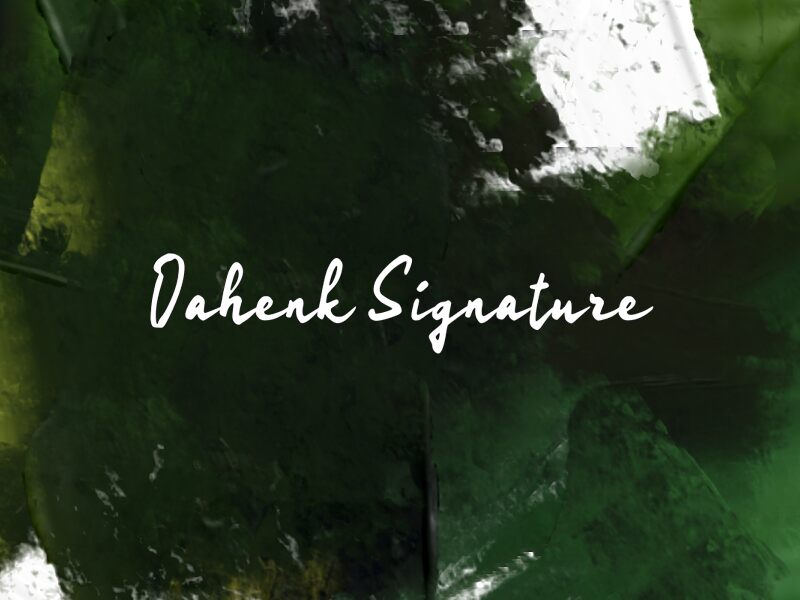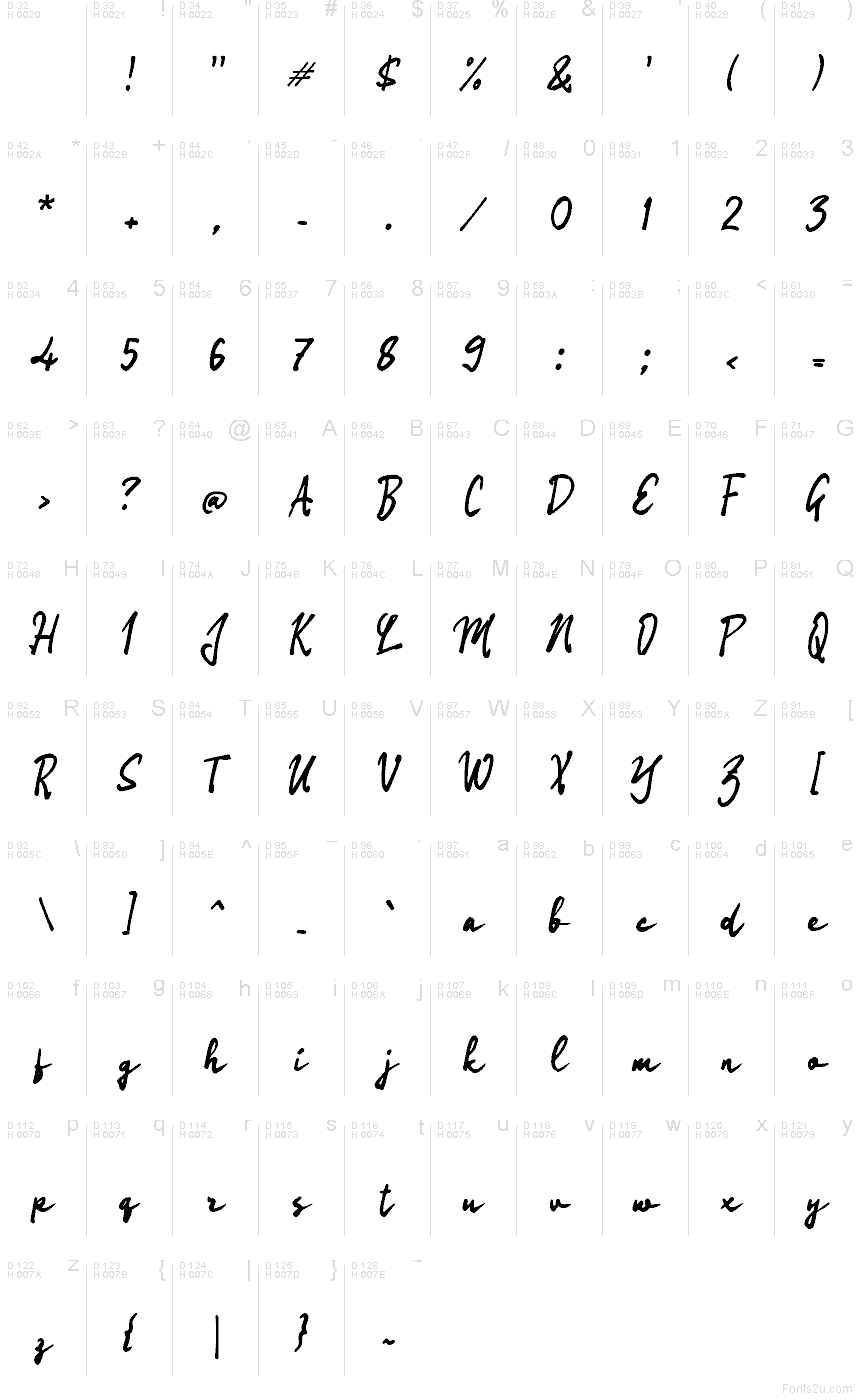
Oahenk Signature
Oahenk Signature font by wep is a free handwritten signature typeface that looks like it was brushed onto the page in one confident sweep. The letters lean and taper with a natural wobble, giving every word a personal, inky presence—casual but still refined. There’s just enough texture and looseness to feel honest, like a real signature on textured paper rather than something mechanically smooth.
Using Oahenk Signature, you can add a human touch to logos, personal branding, social media posts, packaging, wedding stationery, name tags, and editorial accents. This free font shines when used large as a signature mark, supported by a clean sans serif for body text. Keep it slightly oversized and generously spaced so its fluid strokes and character really breathe.